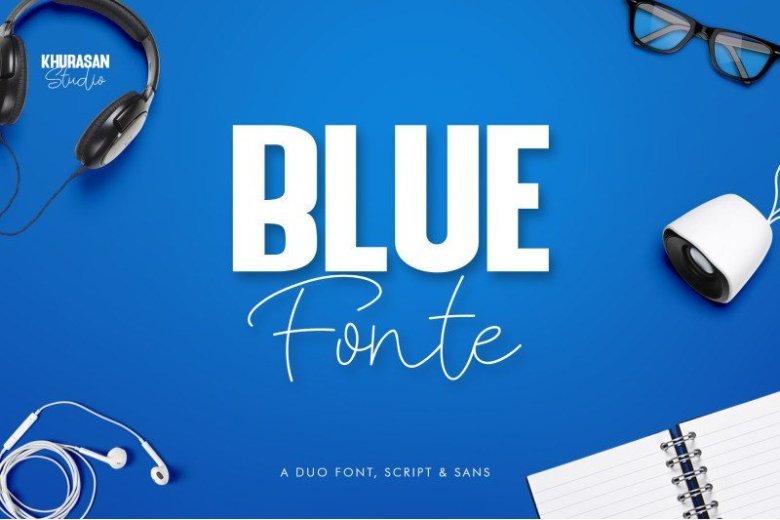
Blue Fonte Font Duo
A beautiful handwriting script and sans nice font type, this is a specially handmade typeface best suited for creating nicely looking logos, brand identities and headlines.
Introducing Blue Fonte Font Duo. it’s perfect for namecard, poster, logo, magazine, cover, banner, tshirt and headers, or even large-scale artwork.